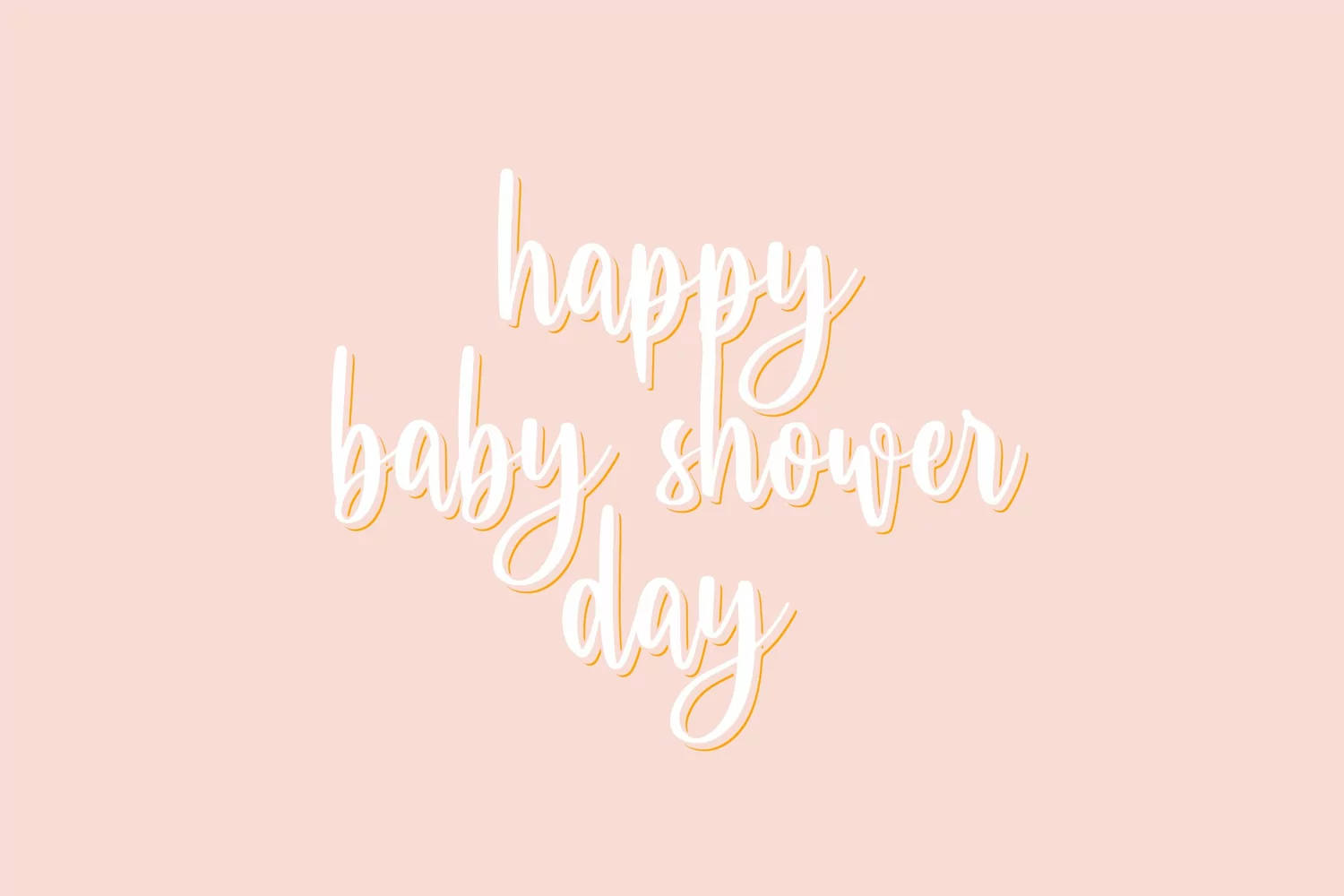
Baby Bday - Cute and Beauty Brush Calligraphy Script Font. It comes with ligatures and alternates. You can combine it to make a perfect beautiful calligraphy design.
Baby Bday is Calligraphy Script Font with ligatures and alternates. The unique flow and easy calligraphy style makes it perfect for wedding design, baby shower, birthday event, blogging, social media, branding, invitation, gretting cards or simply use it in your next design project.
Baby Bday